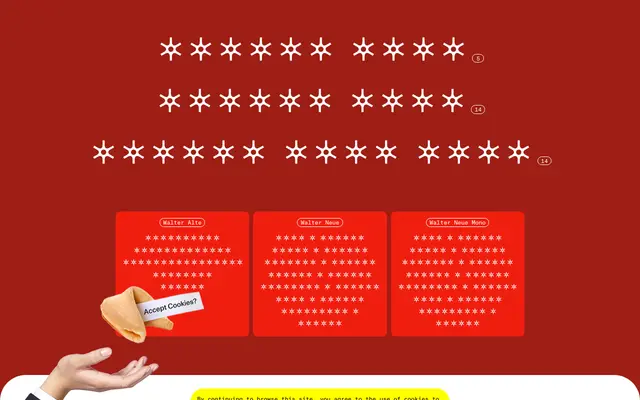
Walter
Dinamo Typefaces · Renan Rosatti, Arnaud Chemin, Simon Mager, Leonardo Azzolini
A joint scholarly project by Dinamo and Omnigroup reviving the letterform teaching tools of Swiss type educator Walter Käch, extended into a fully contemporary grotesque family.
Walter Alte offers three faithfully revived cuts drawn directly from Käch's mid-century pedagogical drawings, ranging from the high-contrast Röntgentherapie to the constructed monolinear Normalgrotesk. Walter Neue departs from strict revival to offer fourteen styles across seven weights with italics and stylistic alternates, softening the source material with rounded punctuation and friendlier proportions suited to text and display use. Walter Neue Mono mirrors the Neue family in a monospaced variant, completing a three-branch system that runs from historical study to functional contemporary type.
Walter spans faithful revivals of Walter Käch's mid-century letterform teaching tools (Walter Alte) and a contemporary grotesque extension (Walter Neue), both rooted in Swiss grotesque tradition with varying degrees of contrast and construction.